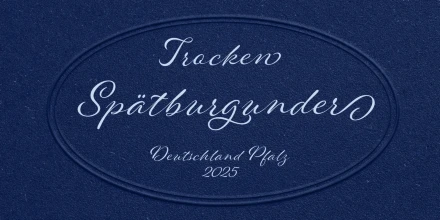
Rosarian
Rosarian celebrates the grace of the pointed brush, flowing expressively from thick, rounded downward strokes to thin, delicate hairlines to create graceful and unique letterforms. Contextual alternates help Rosarian look convincingly hand-lettered, while stylistic alternates allow you to customize Rosarian into a less formal, unconnected script.
OpenType Features
• Common Ligatures
• Discretionary Ligatures
• Fractions
• Ornaments
• Stylistic Alternates
• Stylistic Sets
• Swashes
• Titling Capitals